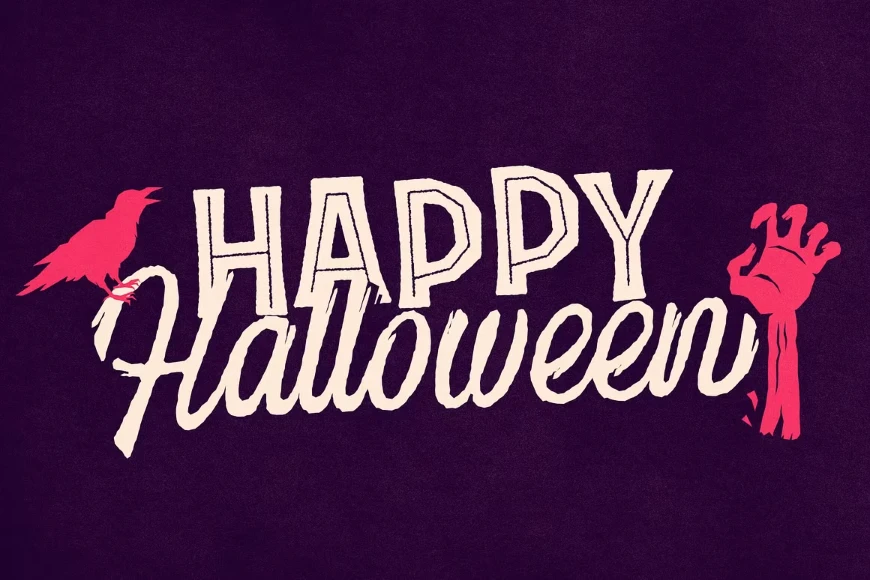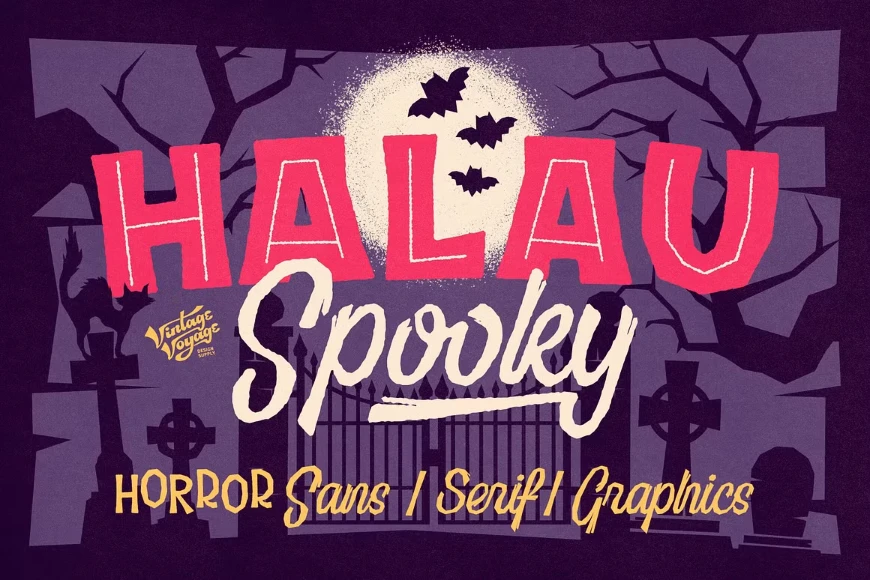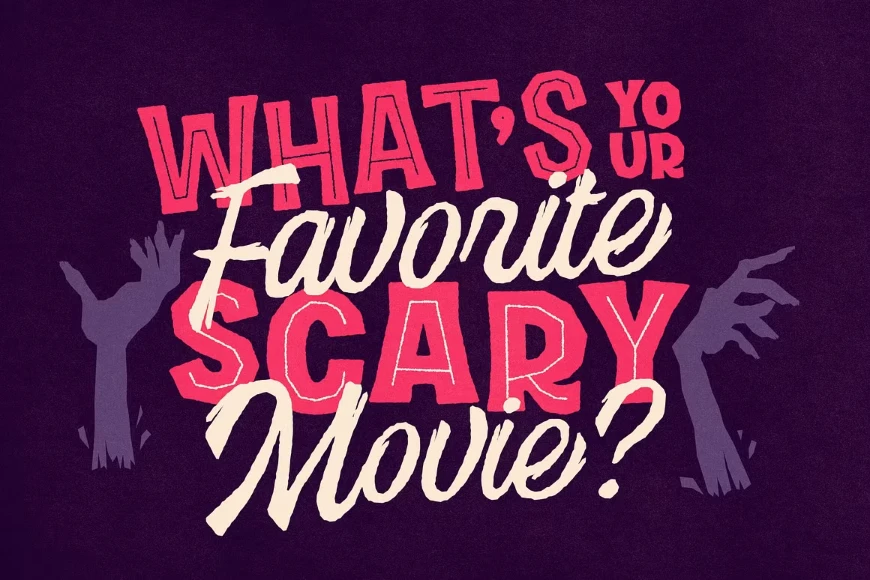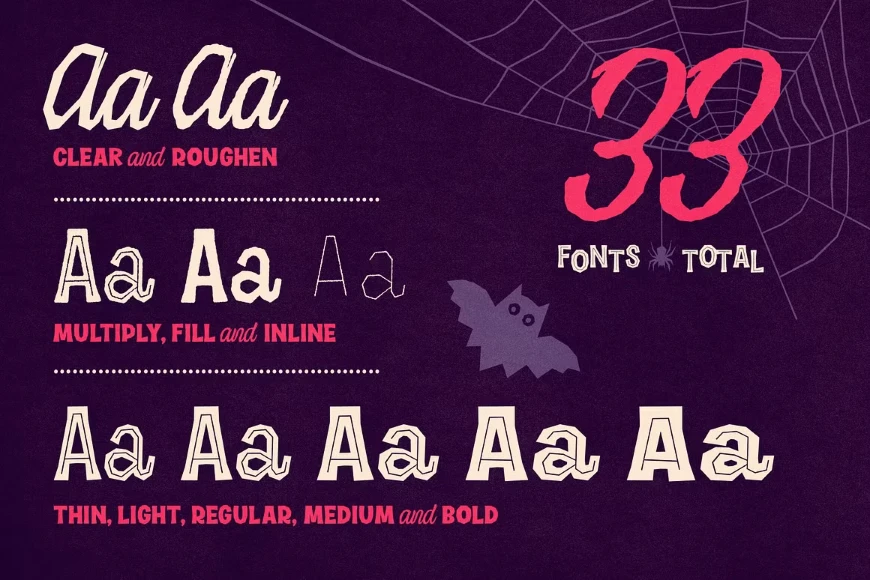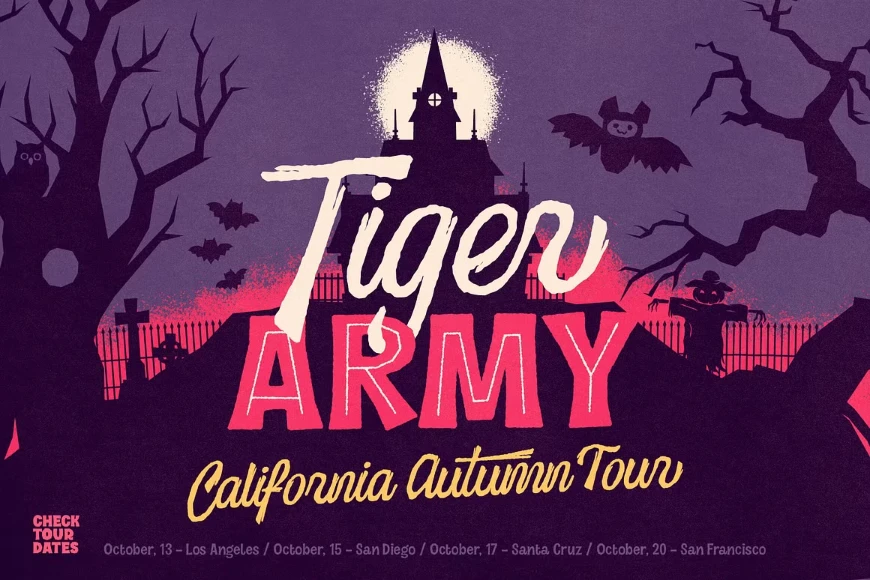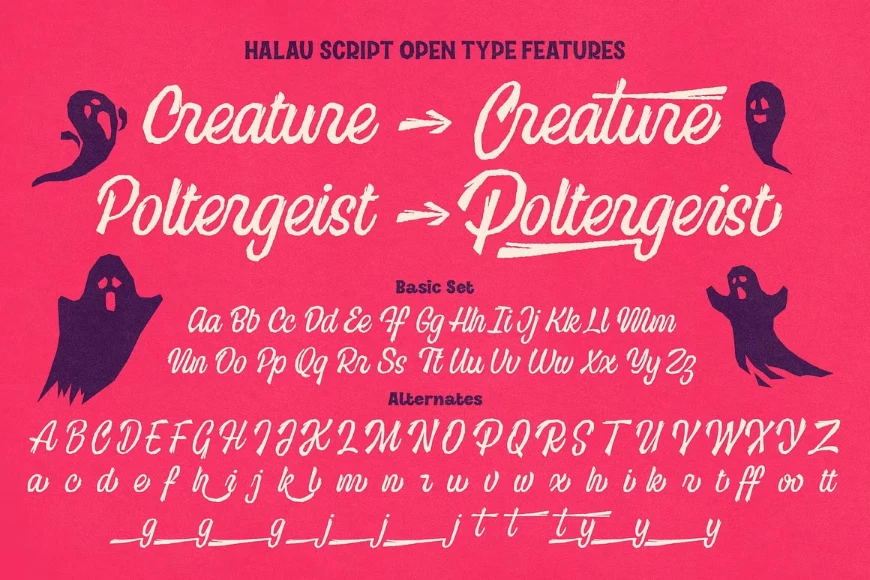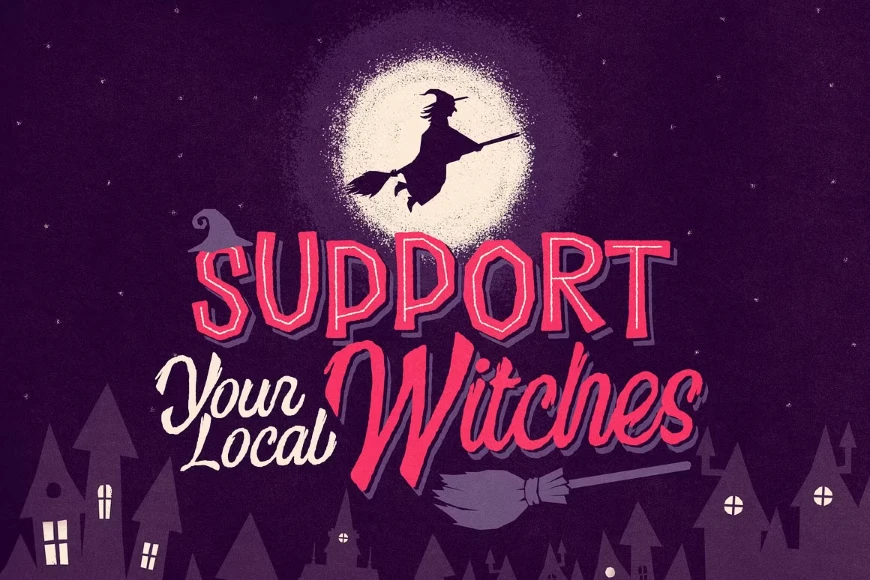
Halau Spooky Script
Halau Spooky Script Regular
Halau Spooky Script Rough
Vintage Voyage Design’s Halau Spooky Script is a creepily enchanting typeface for Halloween or other ghoulishly delightful events. It is meant for headlines, but because of its open shapes, it also works well at smaller subhead sizes! The various alternates within stylistic sets will completely satisfy the most sophisticated font gourmet, too. Choose Halau Spooky Script for party invitations, food packaging, theater posters, and anywhere else you might want something a little devilishly dark.